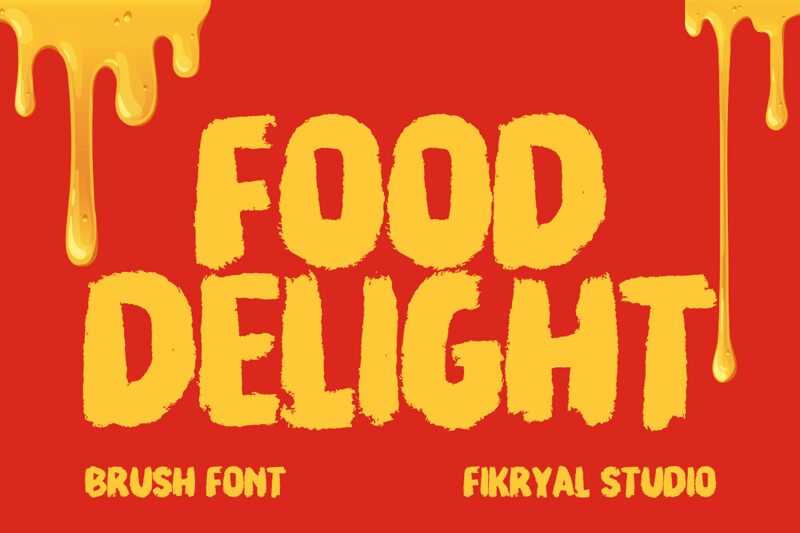
Food Delight font by Fikryal Studio is a dynamic brush free font. With its energetic and informal style, it creates an expressive and casual atmosphere. The handwriting-like strokes evoke warmth and spontaneity, resulting in a handcrafted modern appeal. This font is ideal for various creative contexts and will add a personalized touch to your designs.
Food Delight is suitable for product packaging, food brands, restaurant logos, menus, and cookbooks. Use it in any of your printed or digital projects that might include branding, posters, cards, or other personal visuals.